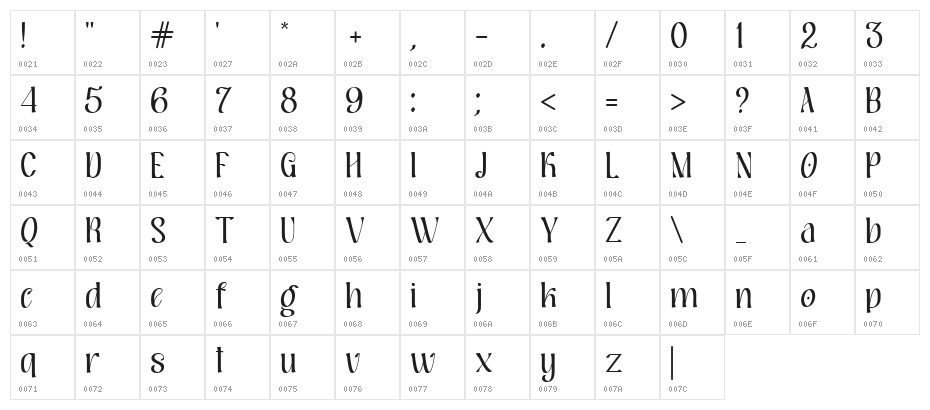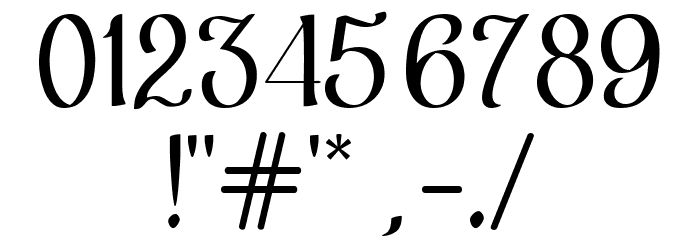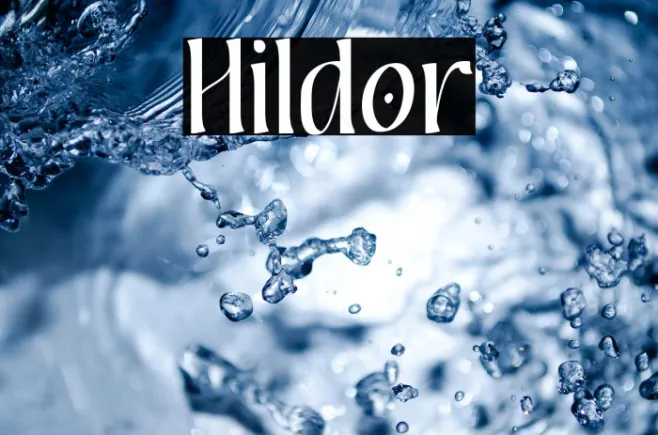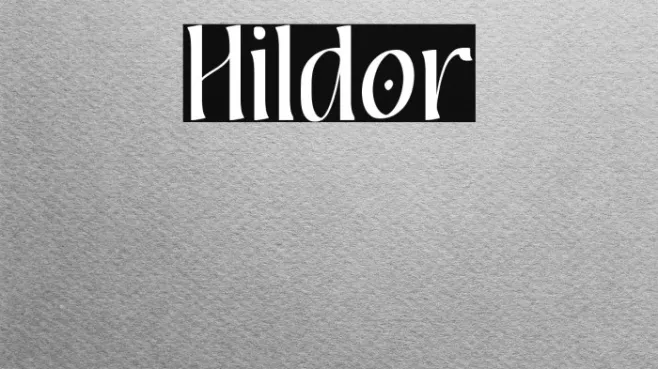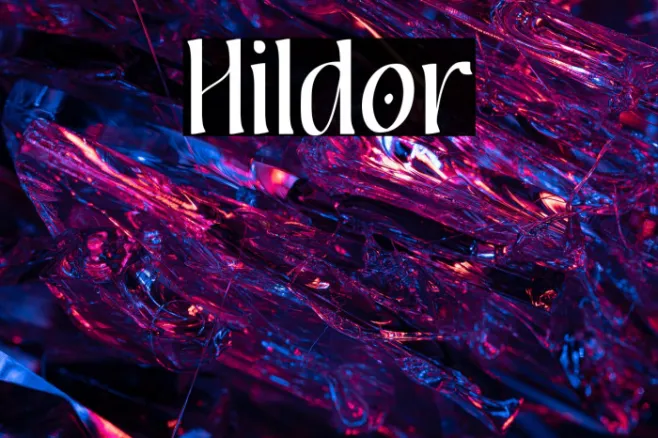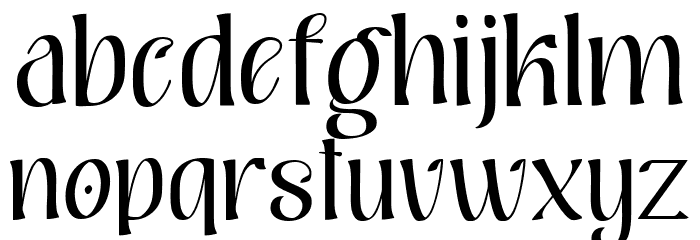
Hildor Font
Hildor Description
This font features a unique blend of elegance and playfulness, characterized by its tall, narrow letterforms with a slight slant. The strokes are smooth and flowing, giving it a handwritten feel while maintaining a structured appearance. The uppercase letters exhibit a distinctive flair with elongated verticals and subtle curves, while the lowercase letters are more rounded and approachable. The numerals and special characters maintain the same stylistic consistency, making the font versatile for various applications. The overall design is both modern and whimsical, suitable for creative projects.
| Overall Style | Modern, Whimsical |
| Proposed Projects | Ideal for branding, invitations, posters, and creative design projects that require a touch of elegance and whimsy. |